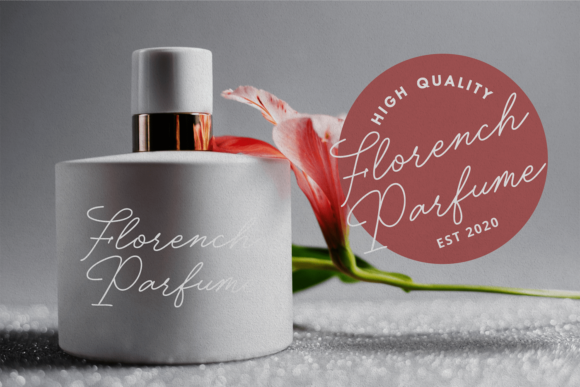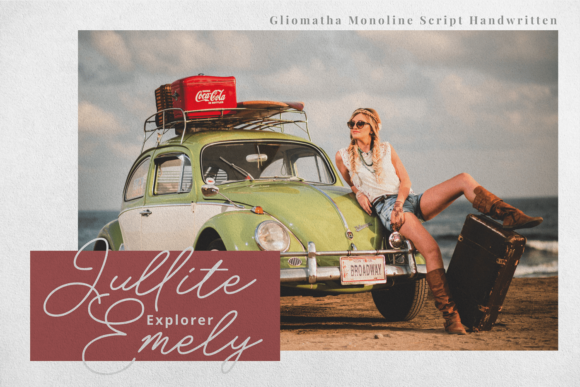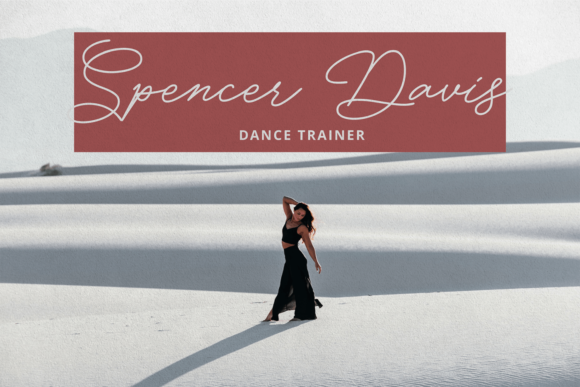
About Gliomatha Font
Gliomatha is a beautiful handwritten font, carefully handcrafted to become a true favorite. It maintains its classy calligraphic influences while feeling contemporary and fresh. This versatility will appeal to a wide range of crafty ideas, from letterheads and titles, to stationery.